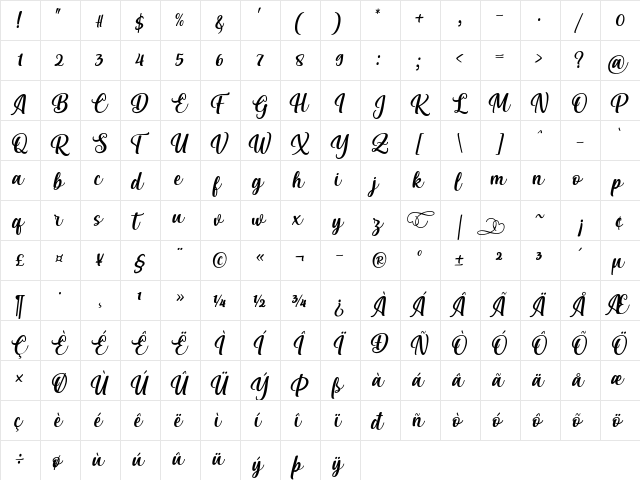
Vitalia Sesha Regular
| Foundry | 7NTypes |
| Designer | Adyfo; Situjuh Nazara |
Vitalia Sesha is a composed and adaptable typeface that performs quietly and consistently across a wide range of design contexts.